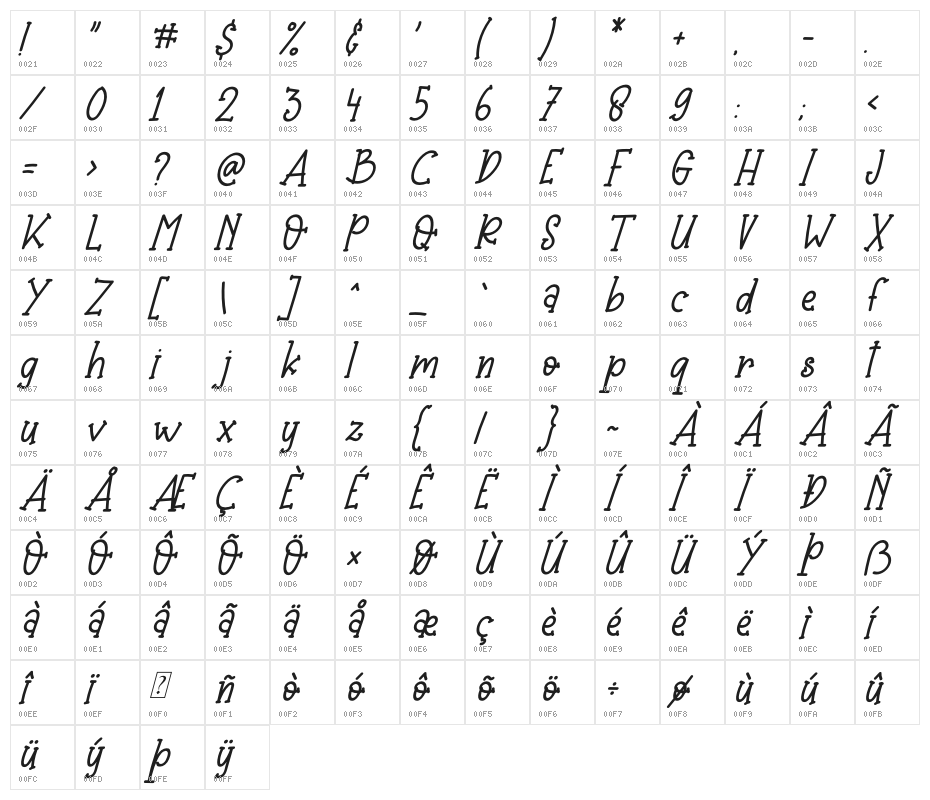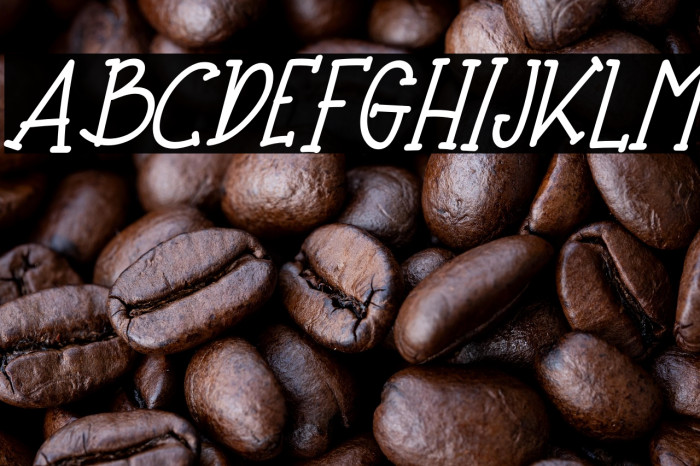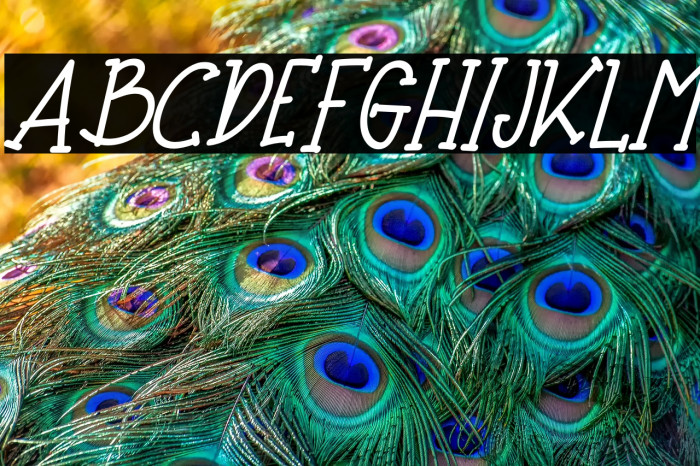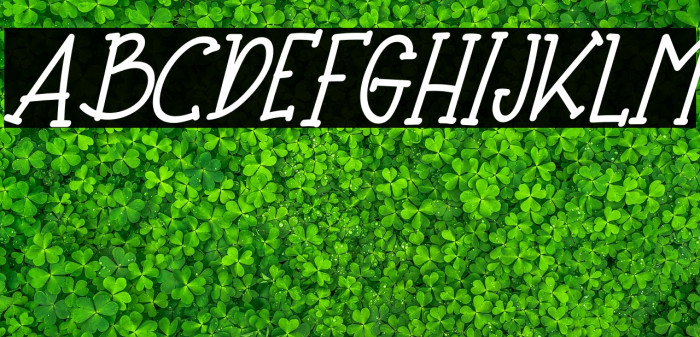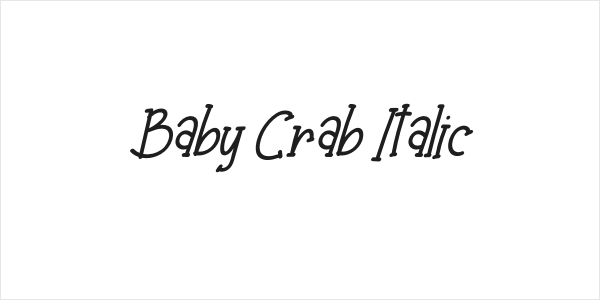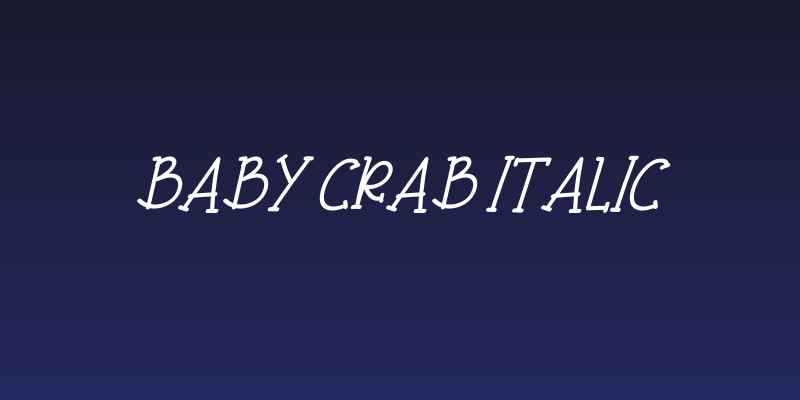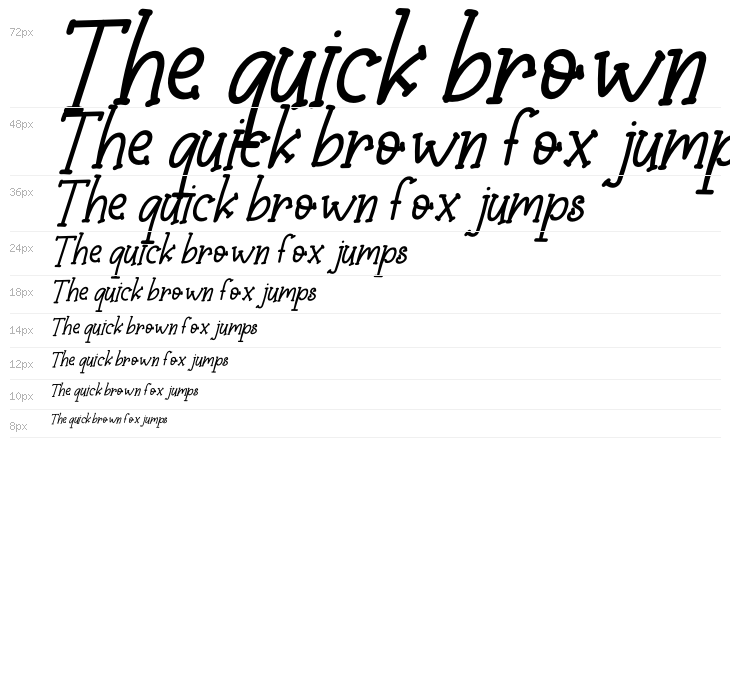
Baby Crab Italic Font
Baby Crab Italic Description
This font features a playful and dynamic style with a handwritten appearance. The letters are slightly slanted, giving it an italic feel, and the strokes are smooth and flowing. The uppercase and lowercase letters maintain a consistent style, with rounded edges and a casual, friendly look. The numbers and special characters are designed to match the overall aesthetic, ensuring a cohesive appearance across all text. This font is ideal for projects that require a personal touch, such as invitations, greeting cards, or playful branding.
| Proposed Projects | Ideal for invitations, greeting cards, playful branding, and personal projects. |